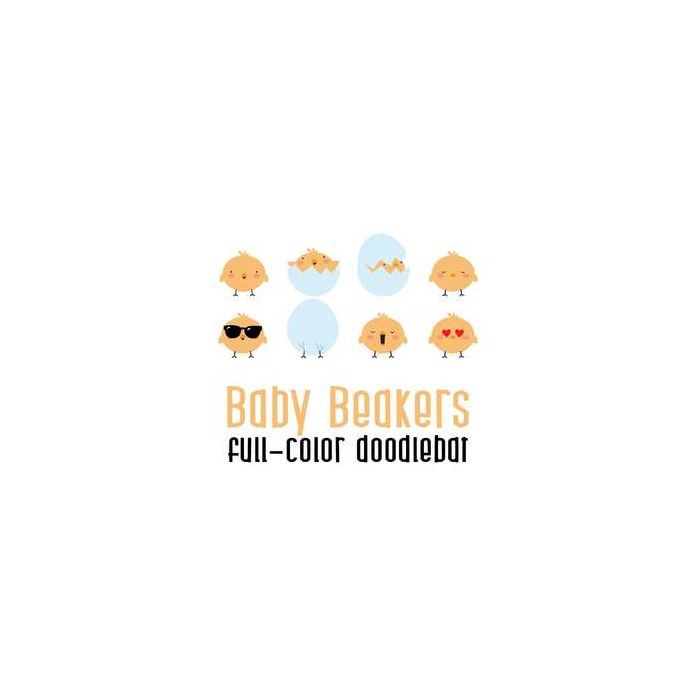
This adorable full color doodlebat font features cute emoticon chickens. Perfect for Spring, Easter, cards, crafts, gifts, decor, scrap book pages, planner stickers and more!